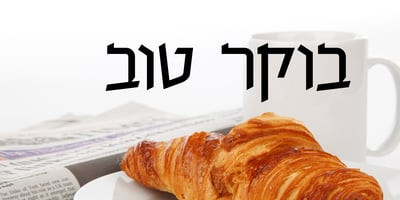
Ptilia MF Font excels in Hebrew children's books, Jewish educational materials, Hebrew kindergarten resources, Israeli youth programs, Hebrew learning applications, Jewish summer camp materials, Hebrew storytelling projects, Israeli children's television graphics, Hebrew family communications, and playful Jewish cultural content where friendly, approachable Hebrew typography creates joyful connections with young Hebrew speakers and learners.
What makes Ptilia MF Font exciting is its delightful transformation of Hebrew letterforms into child-friendly characters that maintain Hebrew linguistic integrity while creating an inviting, playful atmosphere for young learners. This font features softly rounded Hebrew characters with gentle curves, friendly proportions, and welcoming details that make Hebrew text feel approachable and fun for children while preserving proper Hebrew letter recognition and educational value. The cheerful styling and nurturing personality make it ideal for applications requiring Hebrew accessibility, educational engagement, and the warm appeal of child-centered Hebrew learning environments.
Ptilia MF Font family includes Regular weight with naturally child-friendly Hebrew character variations, plus outlined versions perfect for Hebrew coloring activities and bold styles for enhanced visibility in Hebrew educational settings. The family also features playful Hebrew elements, educational symbols, and child-oriented punctuation that complement Hebrew learning materials. Each variation maintains the font's gentle character while serving different Hebrew educational purposes for young audiences.
The Ptilia MF Font Free Download provides Hebrew educators and Jewish families with access to typography specifically designed to support Hebrew language acquisition and Jewish cultural education for children. This font's educational approach makes it perfect for Hebrew schools, Jewish cultural programs, and Hebrew learning resources where accessibility and engagement are paramount for young learners. Its versatility extends to digital Hebrew learning platforms, Hebrew educational apps, and contemporary Jewish family communications requiring child-friendly Hebrew appeal.
Ptilia MF Font supports comprehensive Hebrew character coverage including educational Hebrew symbols, child-appropriate punctuation, and learning-focused elements necessary for Hebrew educational materials and Jewish cultural content for children. The font's carefully designed metrics ensure excellent Hebrew readability for young readers while maintaining the friendly character that defines approachable Hebrew typography. Its scalability preserves the welcoming Hebrew details from small Hebrew learning books to large Hebrew classroom displays.
The font's nurturing presence makes it particularly effective for Hebrew education, Jewish family communications, and Hebrew cultural materials where warmth and accessibility are essential for positive Hebrew learning experiences. Whether designing Hebrew picture books, Jewish holiday materials, or Hebrew educational games, Ptilia MF Font delivers child-friendly Hebrew typography that makes Hebrew language learning enjoyable while fostering positive connections with Jewish culture and Hebrew literacy development effectively.